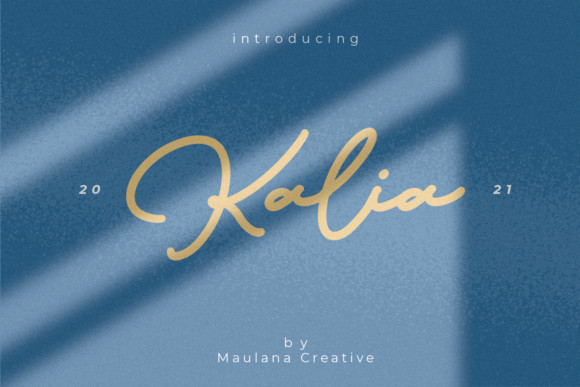
Kalia Font
Kalia is a simple and delicate handwritten font. Warm and dainty, this font will turn each of your project ideas into real works of art. Have fun with this beautiful font and explore its endless variations.